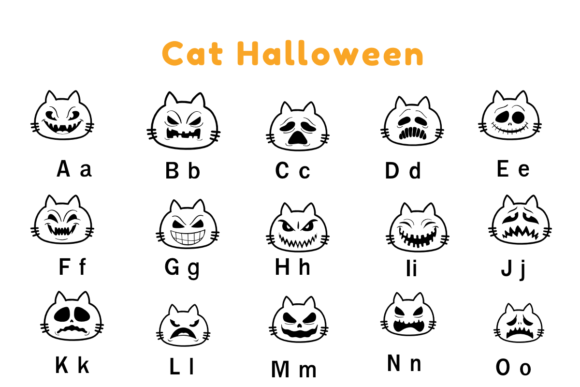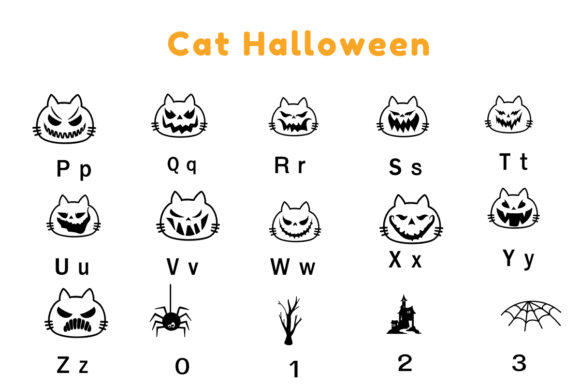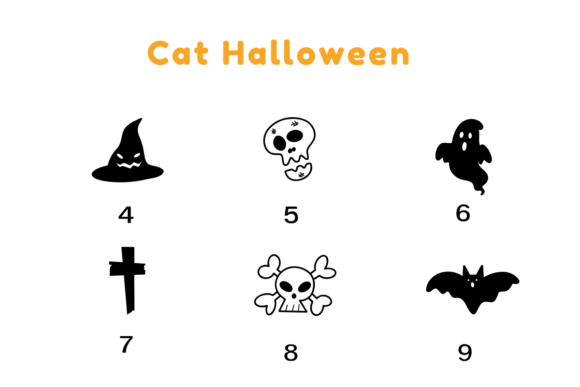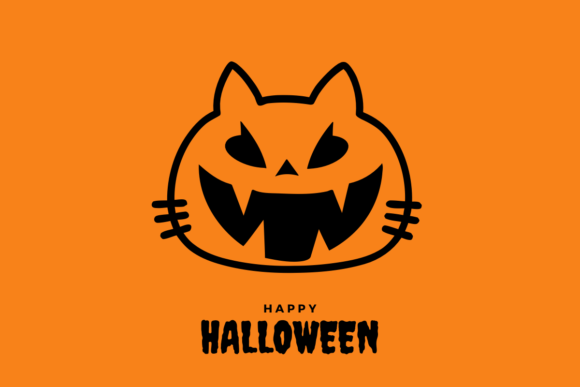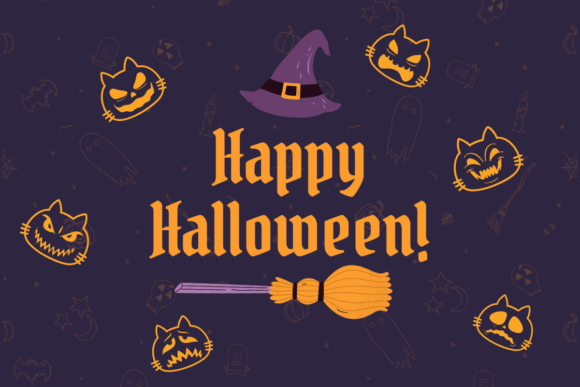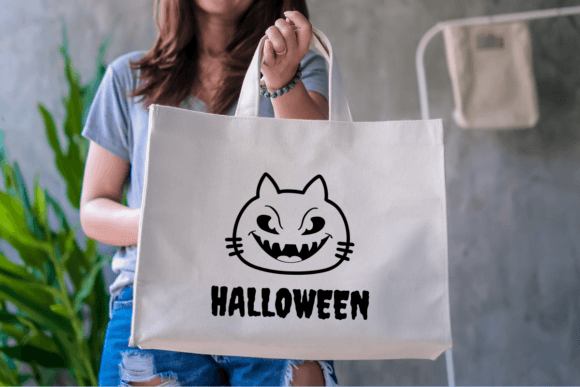
Get Ready to Purr-fect Your Halloween Designs
I still remember the moment when I stumbled upon a unique font while working on a spooky Halloween project. The font was unlike any I had ever seen before – it was made up of creepy cat heads instead of regular letters. Instantly, I knew I had to have it. That’s when I discovered the Cat Halloween Font, a fun and spooky font designed specifically for adding a touch of Halloween spirit to your projects.
As a designer, I can attest that finding the right font can make all the difference in bringing your creative vision to life. And with the Cat Halloween Font, you can create truly unique and eye-catching designs that will leave a lasting impression. Whether you’re working on a Halloween-themed logo, poster, or social media graphic, this font is sure to add a touch of feline fright to your project.
Cat Halloween Font Key Features
- Unique Characteristics: The font features a unique, hand-drawn design with a spooky cat theme, perfect for Halloween-themed designs and projects.
- Font Style: The font comes in a bold, playful style with intricate details, making it ideal for titles, headings, and other attention-grabbing text.
Designer Review: Cat Halloween Font
Overall, I think the Cat Halloween Font is a fun and playful addition to any Halloween-themed project. It’s perfect for cat lovers and anyone looking for a unique twist on traditional spooky fonts. Here are some of the things that work well:
- ✨ The font’s cat theme is adorable and well-executed, with cute little cat faces and paws incorporated into the design.
- ✨ The font is highly customizable, with a range of weights and styles to choose from, making it easy to match with different project requirements.
- ✨ The font is well-optimized for digital use, with clear and crisp lines that look great on screens.
- ⚠️ The font may be too cute or childish for some projects, particularly those that require a more serious or spooky tone.
- ⚠️ The font’s cat theme may not be suitable for all audiences, particularly those who are not cat lovers.
- ⚠️ The font’s customizability can also make it overwhelming to choose the right style or weight, particularly for designers who are not familiar with the font.
Overall, I think the Cat Halloween Font is a fun and unique addition to any designer’s toolkit, but it may not be suitable for every project or audience. With a little creativity and careful selection, it can add a playful touch to any Halloween-themed design.
The Cat Halloween Font is perfect for:
- Halloween-themed designs (e.g. party invitations, decorations)
- Spooky or whimsical designs (e.g. horror movie posters, children’s book illustrations)
- Seasonal branding (e.g. Halloween-themed logos, social media graphics)